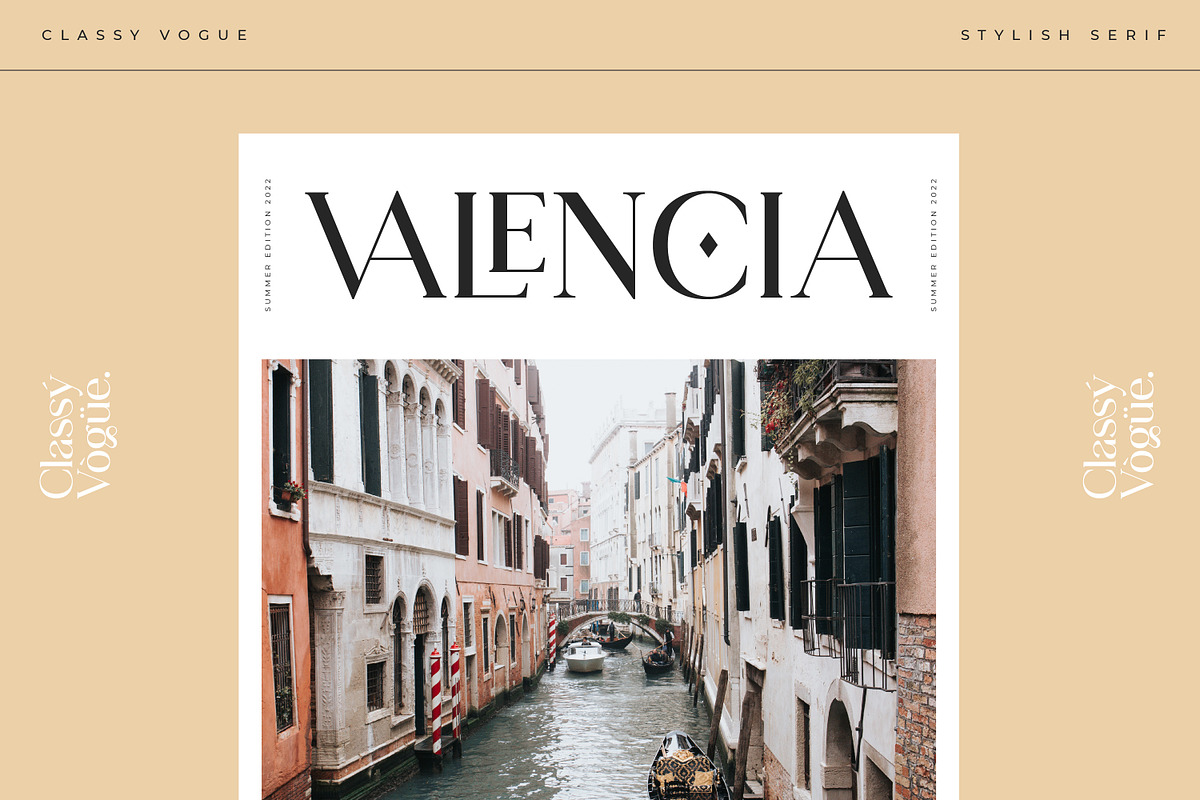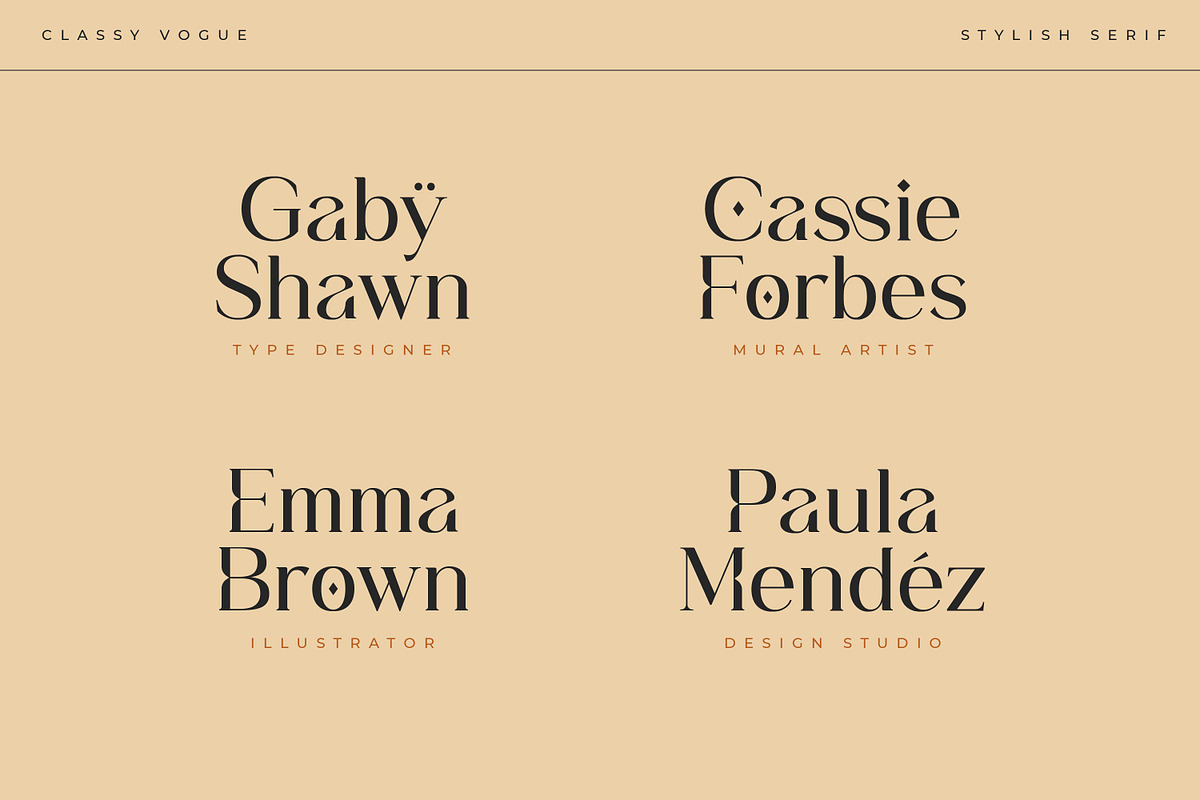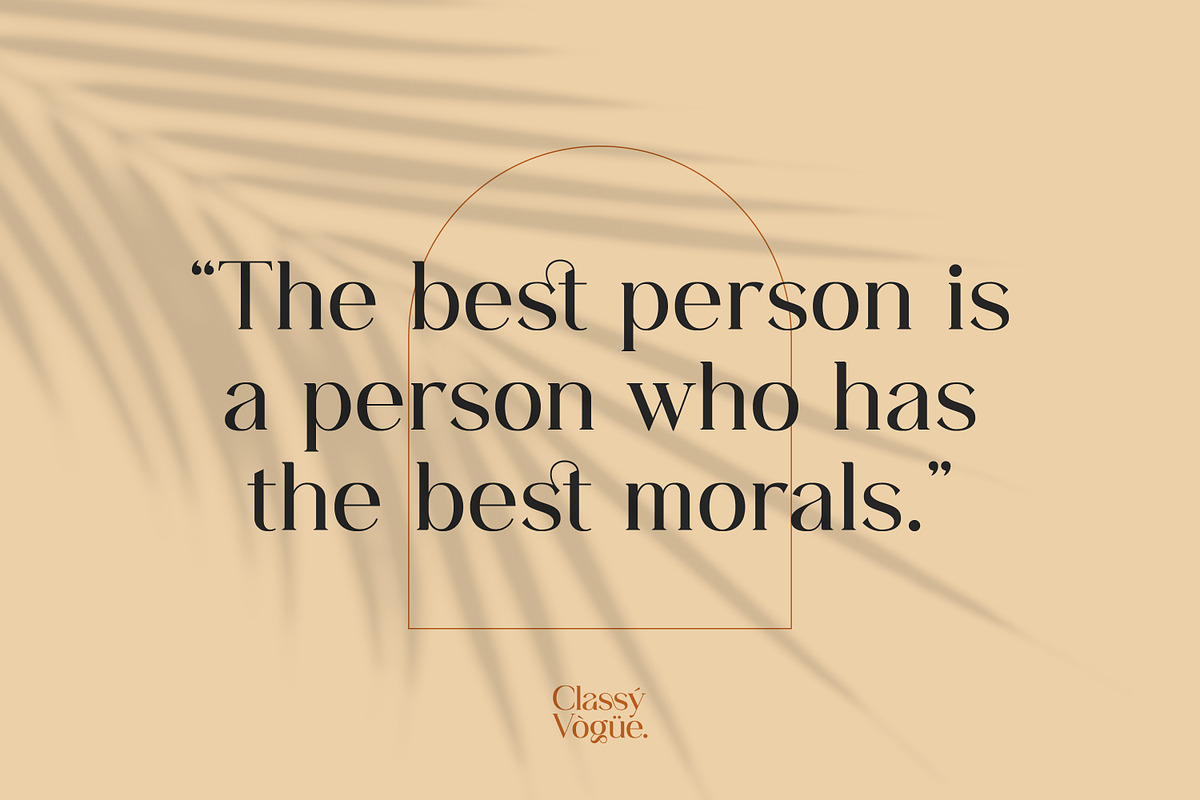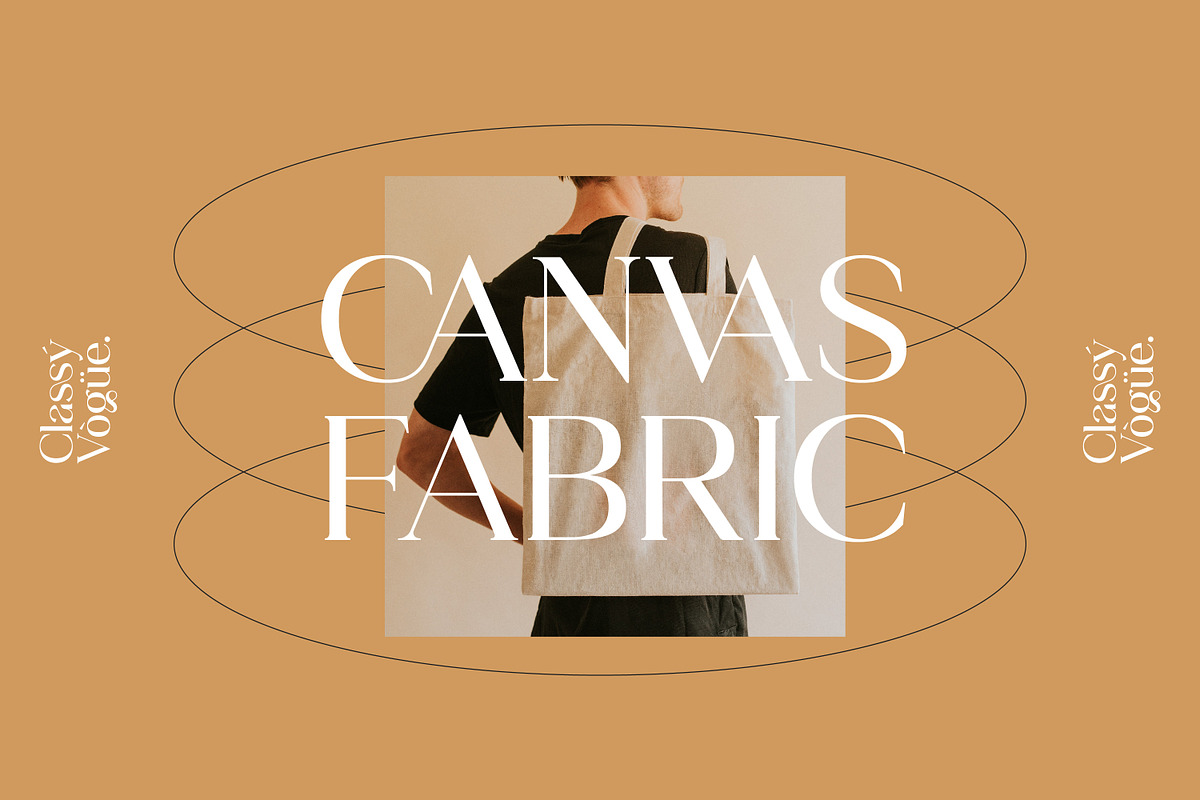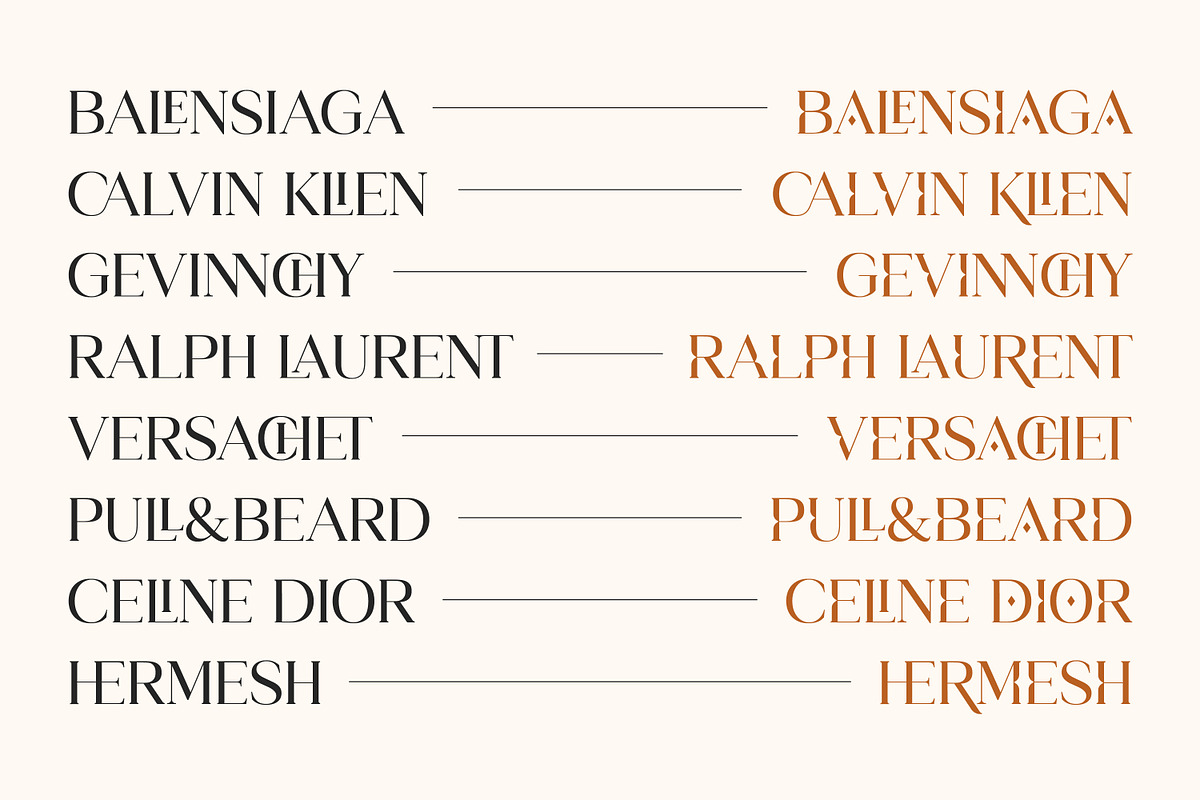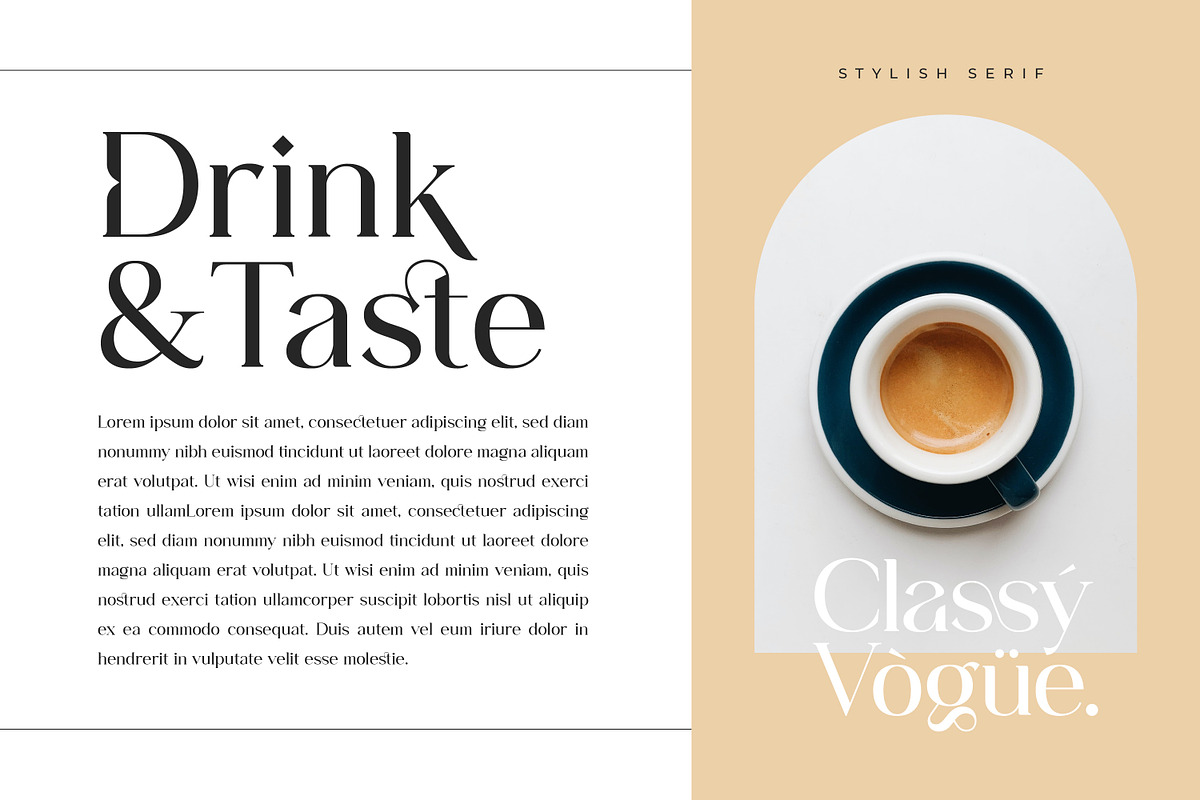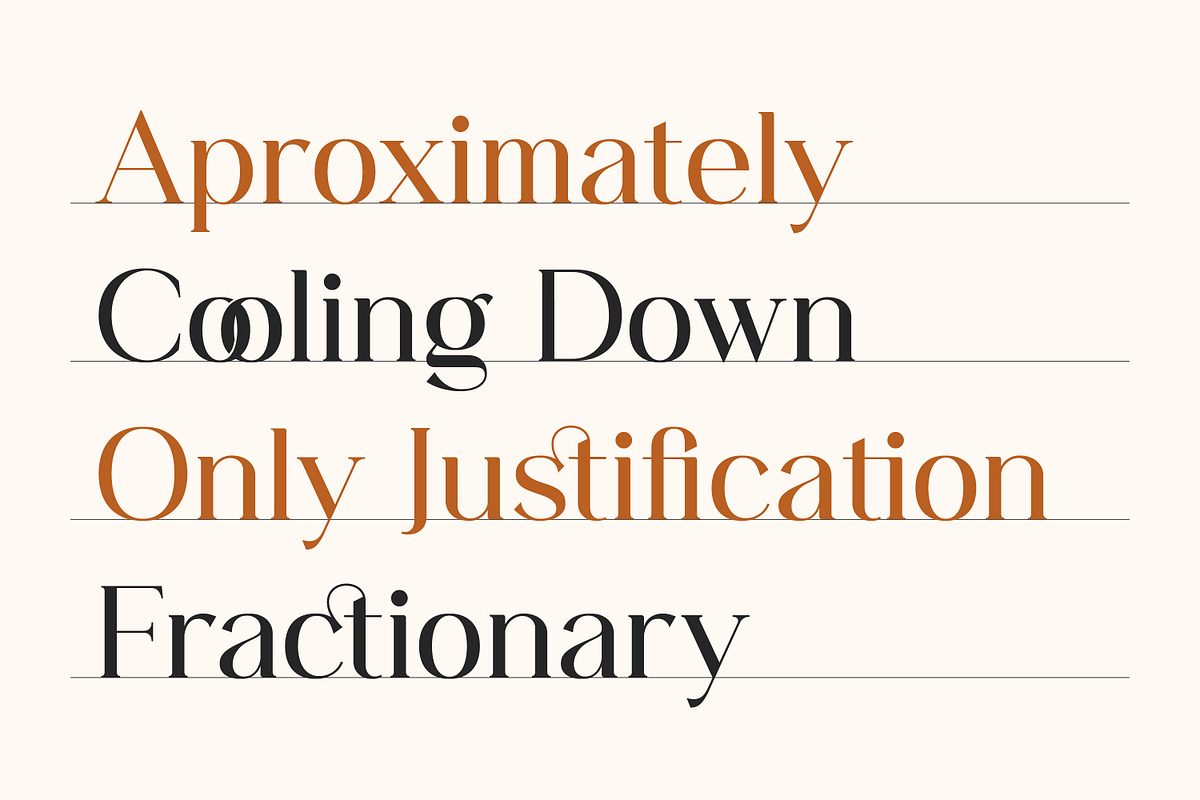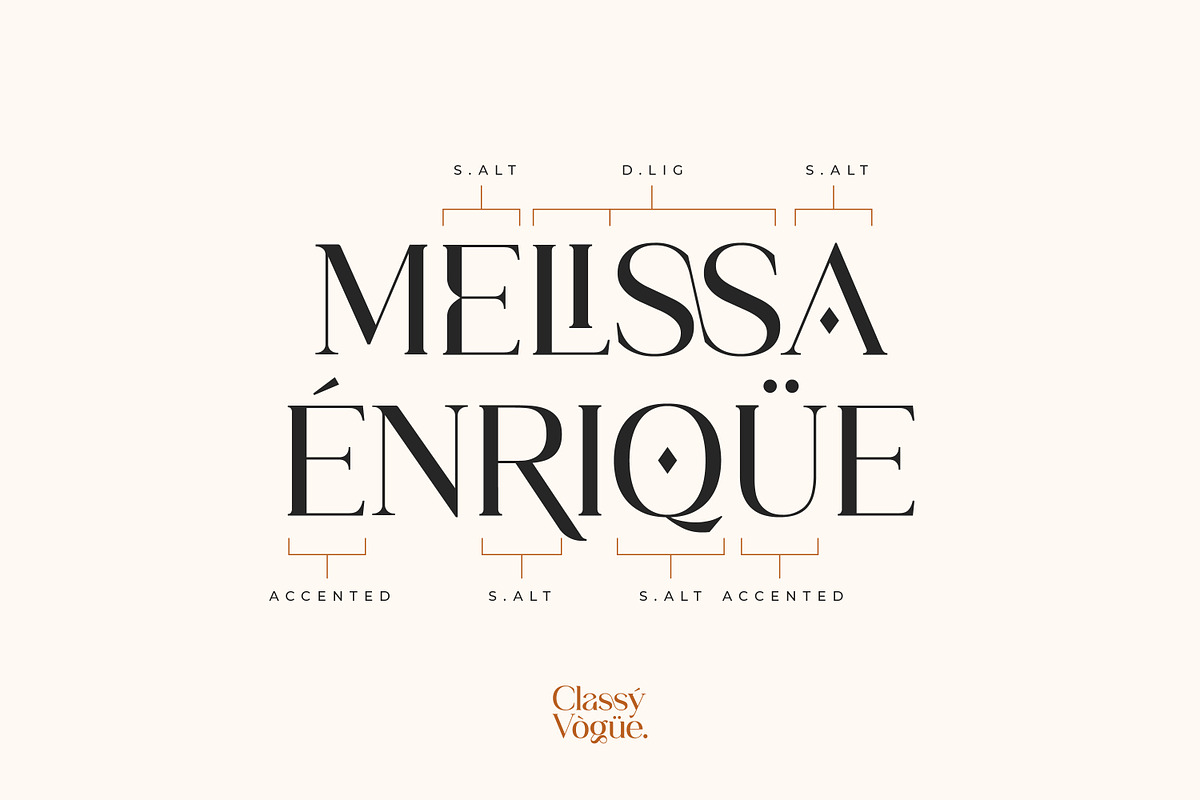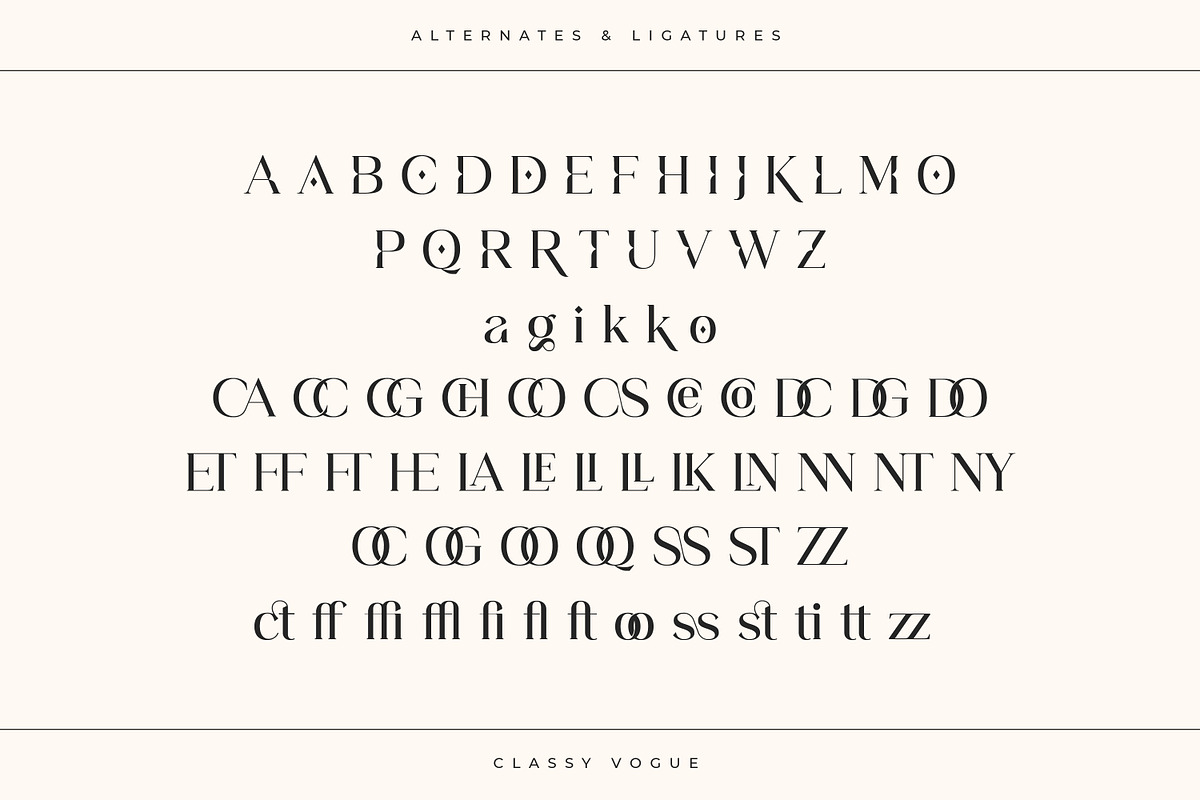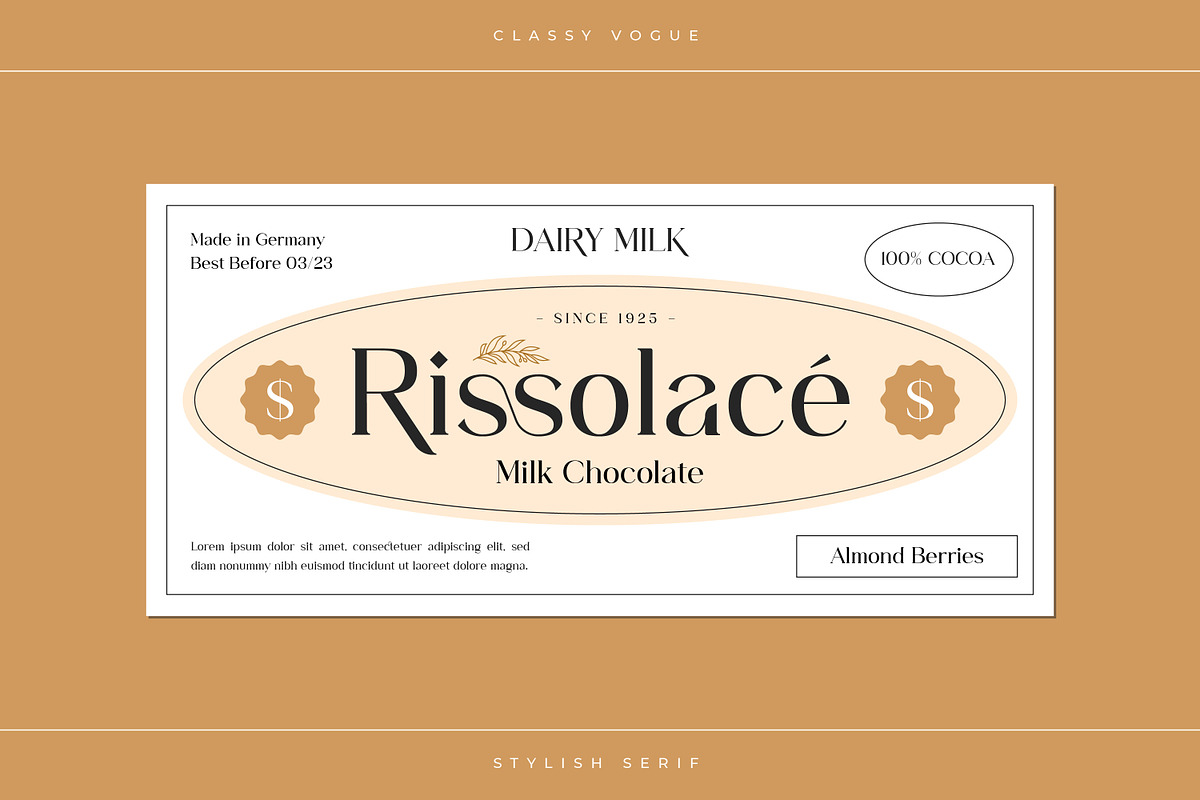
Classy Vogue - Stylish Serif
Classy Vogue is a stylish display serif with an elegant and luxury style that perfectly matches your branding project and more.
FONT FEATURES
Additional Accents
66 Languages
Kerning